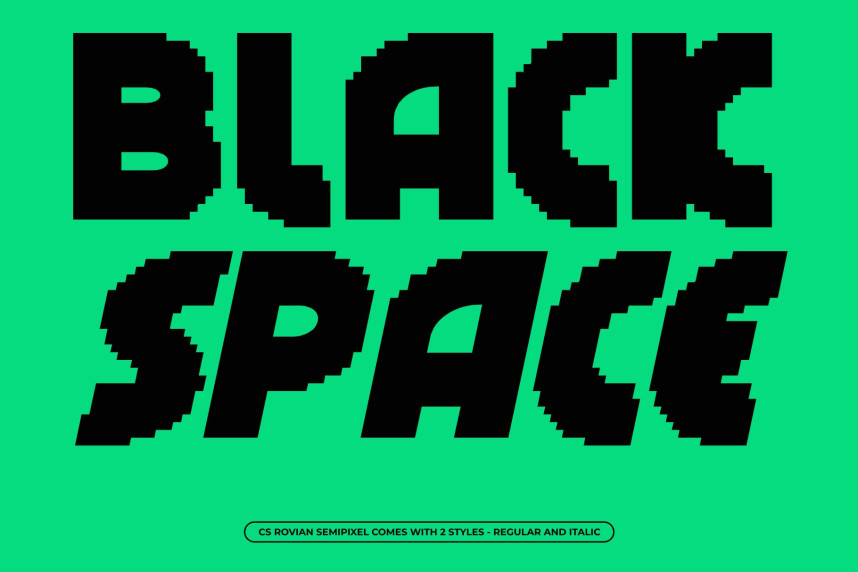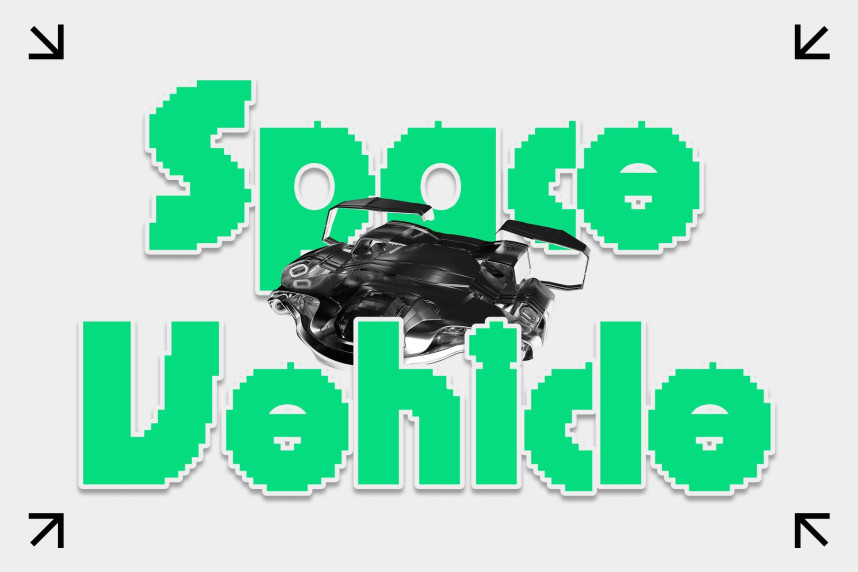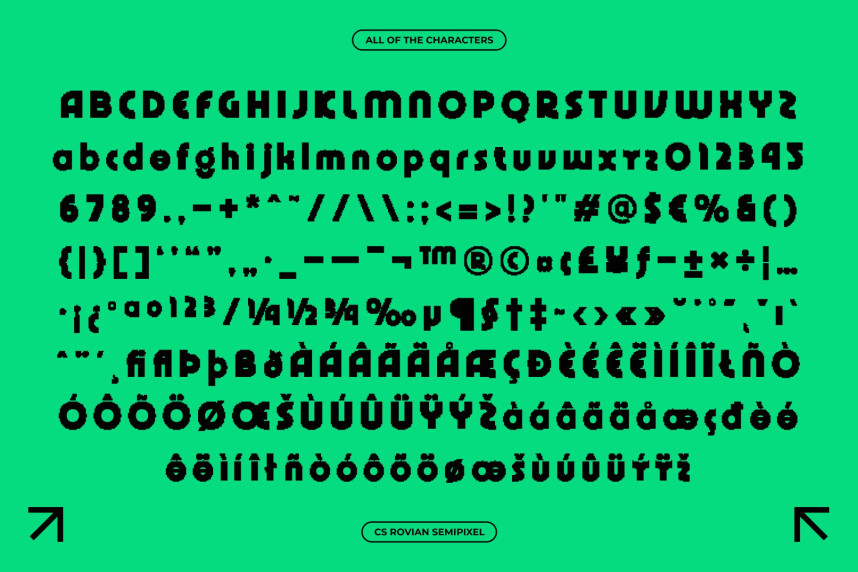
CS Rovian Semipixel Font
CS Rovian Semipixel Font – Modern Sans Serif Display Font: Where Geometric Techno Meets Smooth Pixel Innovation
Bold Geometric Design with Techno Playfulness
This is a modern sans serif display font that combines bold geometric construction with a playful techno-inspired personality. Its confident letterforms and clean contemporary structure create a striking visual presence, while its dynamic proportions add energy and creativity. Designed for maximum display impact, it delivers typography that feels futuristic, expressive, and full of character.
Semipixel Design with Smooth Digital Aesthetics
This font blends the structured appeal of pixel-inspired square shapes with refined curves and modern detailing. Unlike traditional pixel fonts that rely on rigid block construction, this hybrid approach softens the geometry to create a smoother, cleaner appearance while preserving its digital influence.